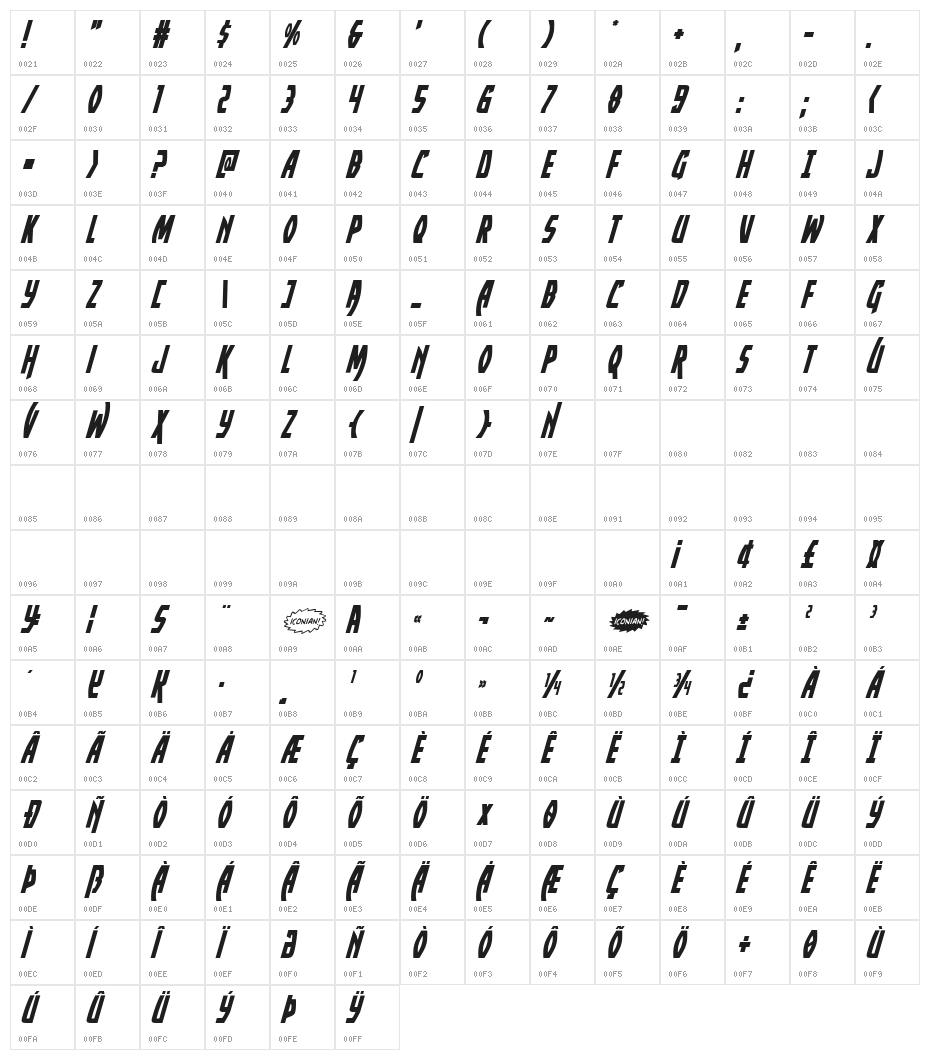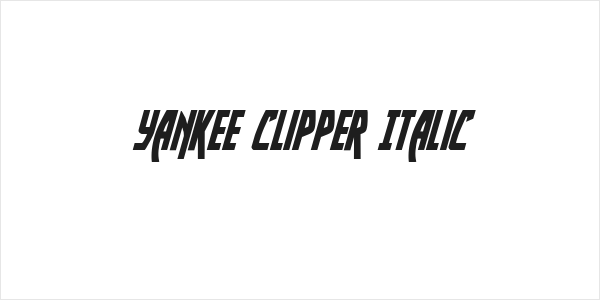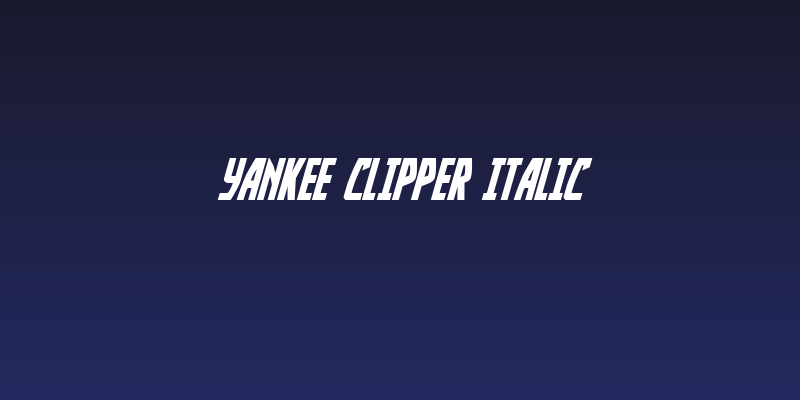
Yankee Clipper Italic Font
Yankee Clipper Italic Description
This font features a bold and dynamic style with a distinct italic slant, giving it a sense of motion and energy. The characters are sharply angled, with a strong presence that commands attention. The uppercase and lowercase letters maintain a consistent style, with the uppercase being particularly impactful. Numbers and special characters are designed to match the boldness and slant of the alphabet, ensuring a cohesive look across all text. The font's unique style makes it suitable for projects that require a strong visual impact.
YANKEE-CLIPPER-ITALIC UPPERCASE
YANKEE-CLIPPER-ITALIC LOWERCASE
YANKEE-CLIPPER-ITALIC OTHER CHARS
| Proposed Projects | Ideal for sports branding, dynamic posters, and eye-catching headlines. |